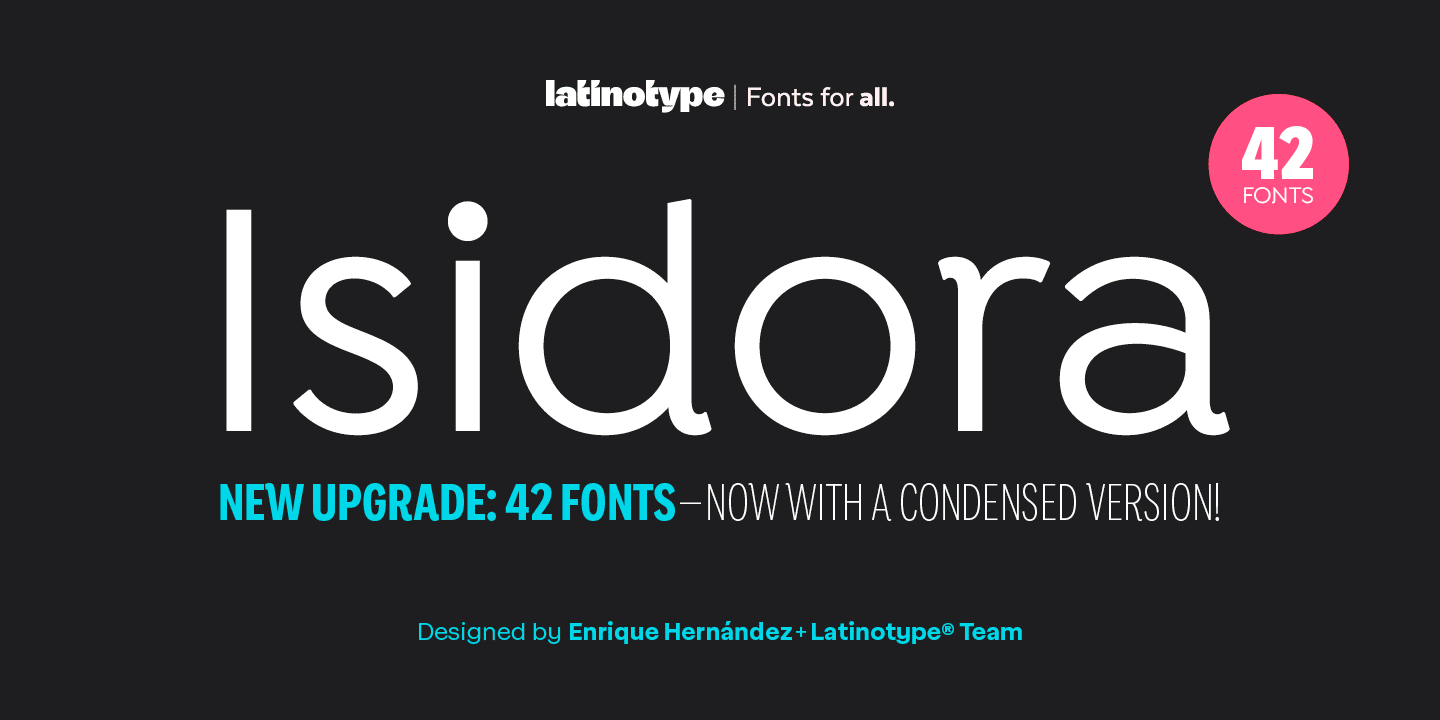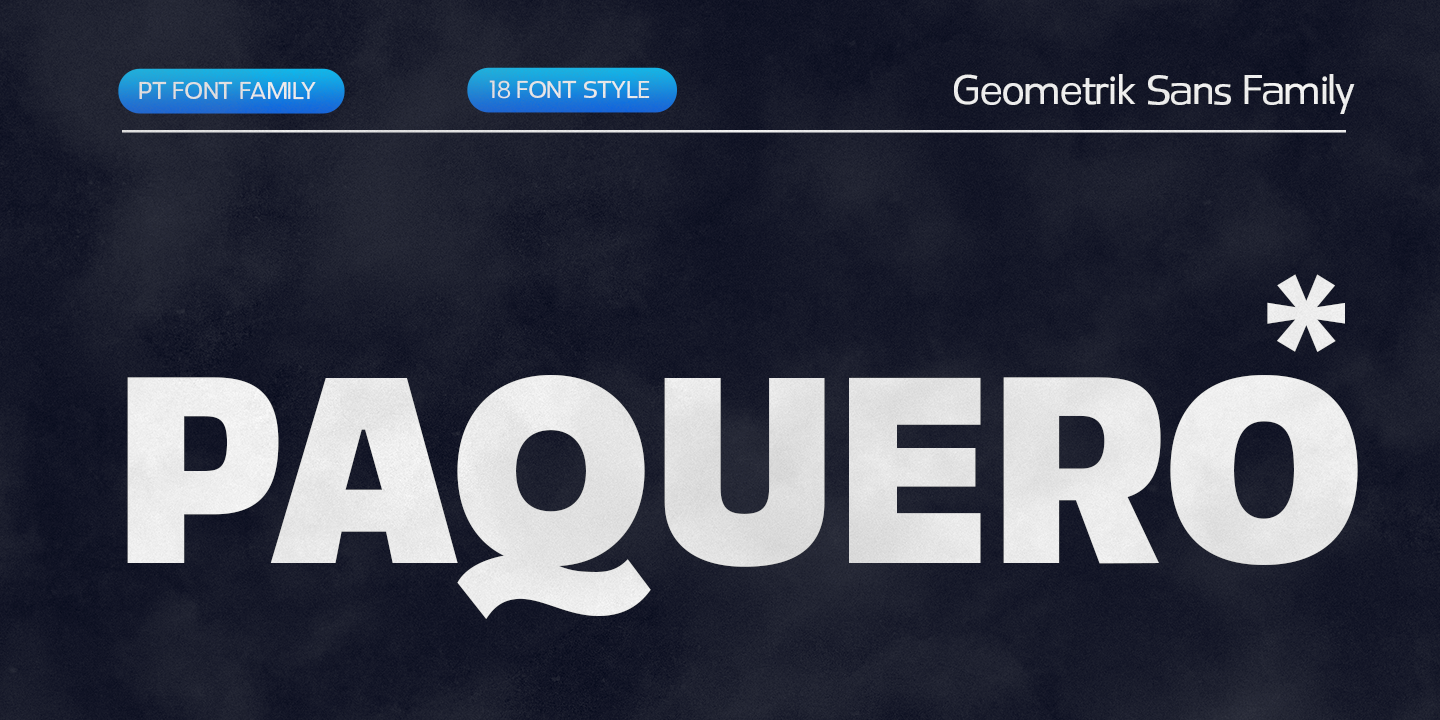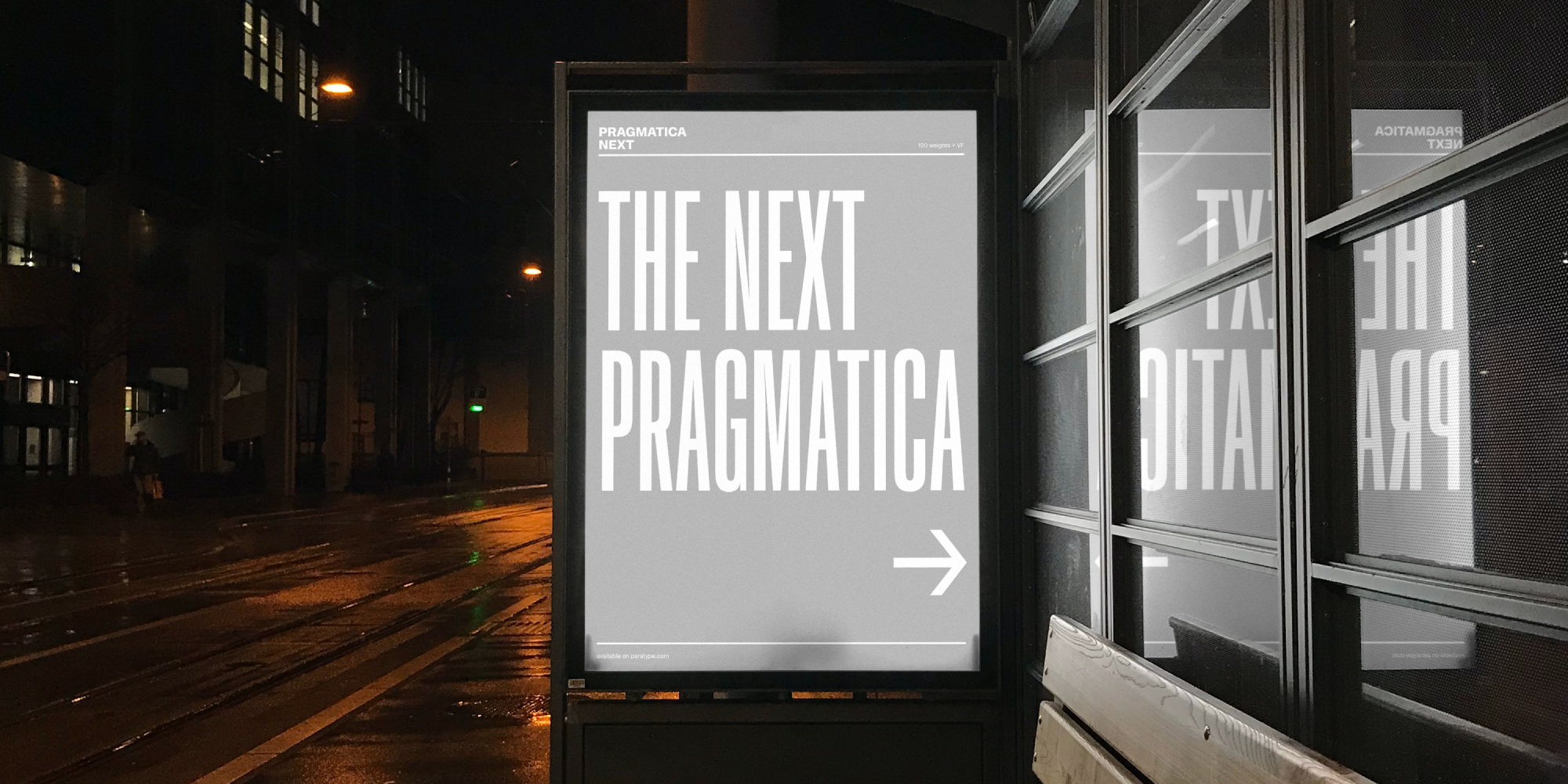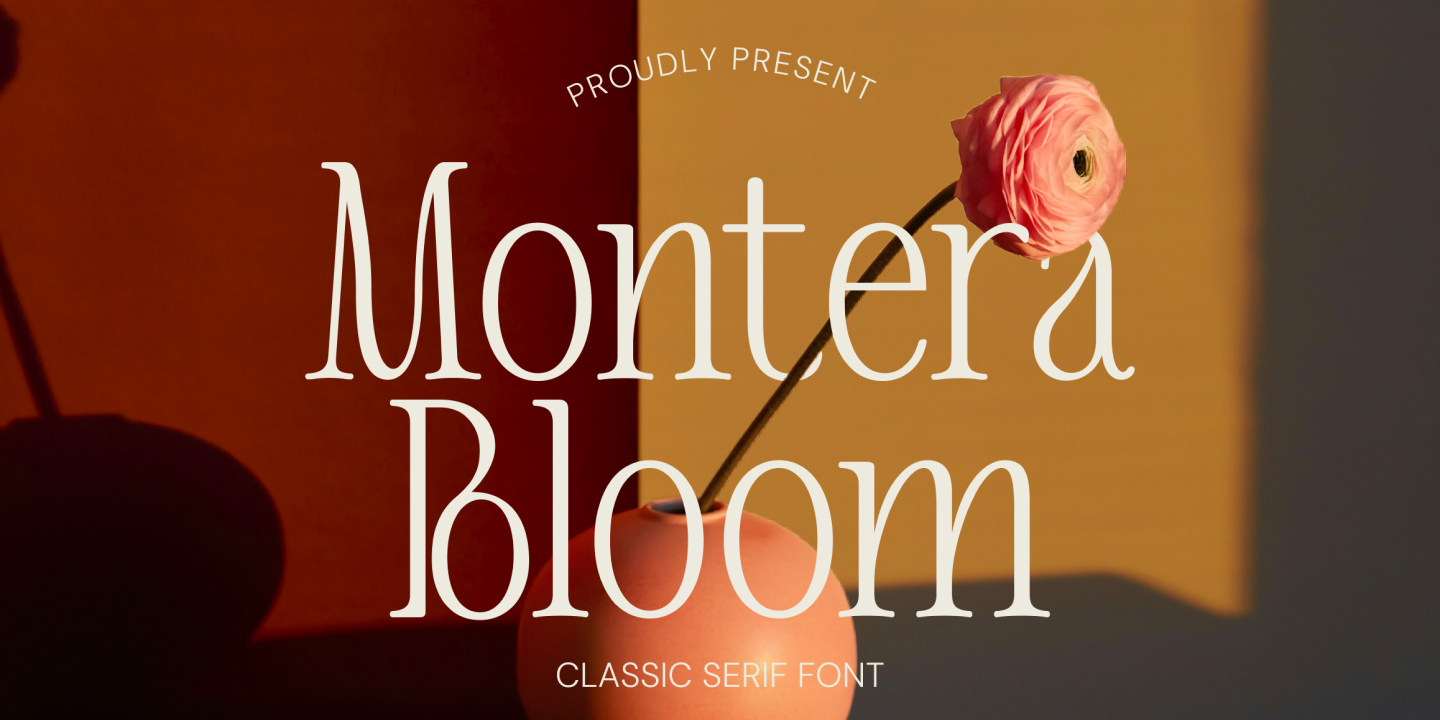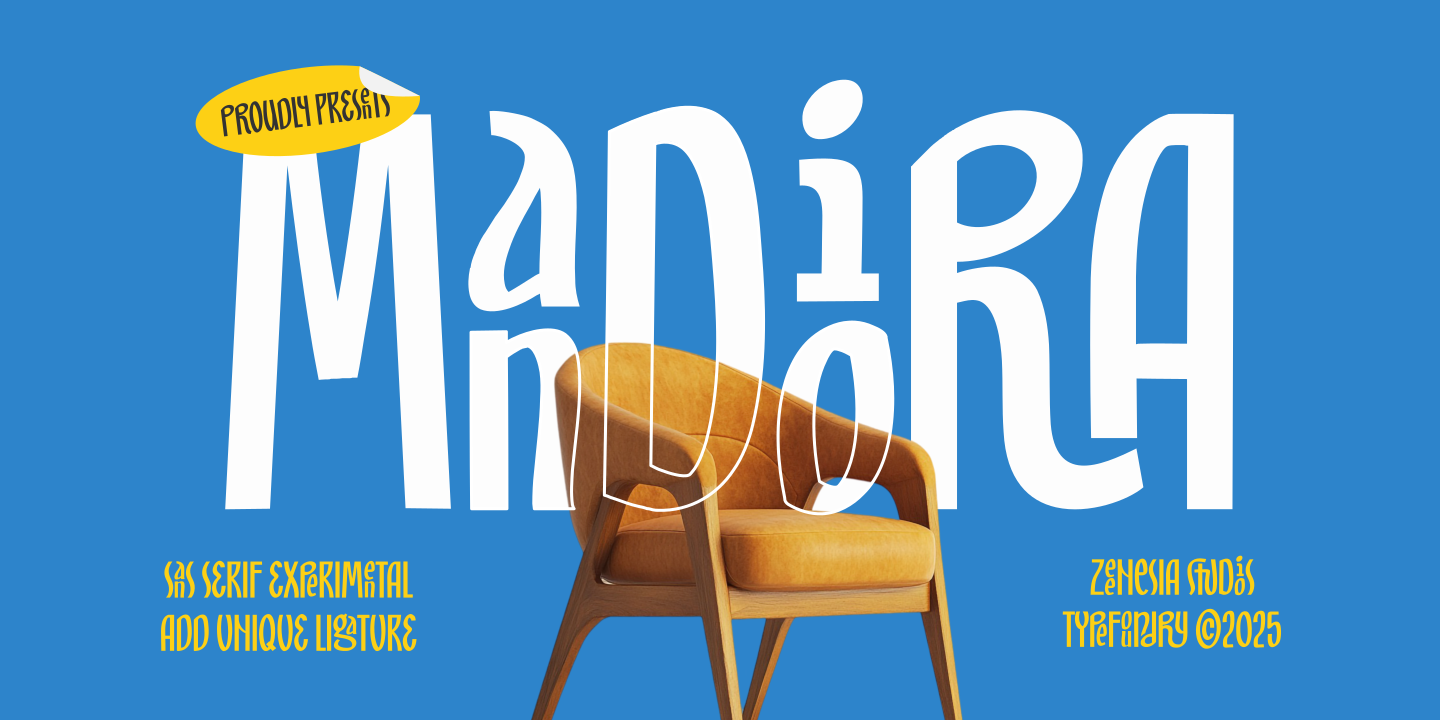
Designed by Enrique Hernández V., Isidora is a modern geometric typeface inspired by early 20th-century classic typefaces, with a contemporary and functional twist. Despite its strong, rational structure, it maintains a friendly and expressive look thanks to its rounded terminals and softer diagonal cuts. The family consists of two subfamilies with 7 weights each — Regular (more classic) and Alternate (more contemporary and display-oriented) — both with matching italics, for a total of 28 fonts. The collection expands with Isidora Condensed, designed to fit more text into less space while preserving the visual strength that has made the family so popular. With optimized proportions, refined curves, and updated details, this version enhances Isidora's contemporary character and makes it even more versatile for headlines, branding, editorial projects, and identity systems. Compact, clear, and strong, it combines efficiency and style at any scale. 42 fonts for $299 $119.60 | |
| | Pragmatica Next | 60% OFF This font works for almost everything: branding and identity, interfaces, packaging, signage ... | | | | |
| | Paquero | 30% OFF The bold repetition of basic shapes creates a clear rhythm, making this a highly legible ... | | | | |
| | Montera Bloom | A refined classic serif font that blends timeless beauty with modern sensitivity ... | | | | |
| | Mandiora | 30% OFF Perfect for branding, posters, editorial titles, and creative projects, Mandiora brings ... | | | | |